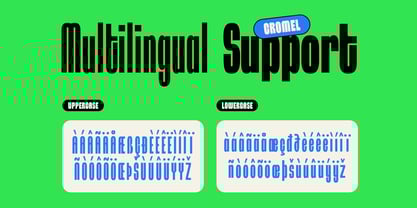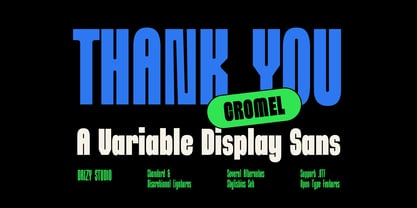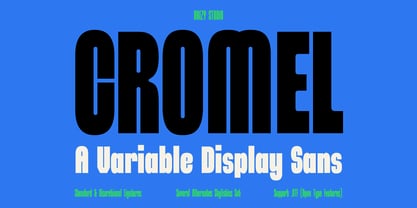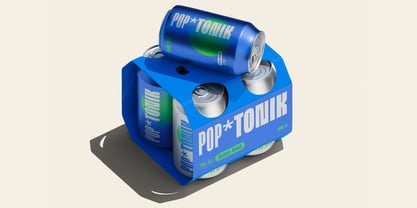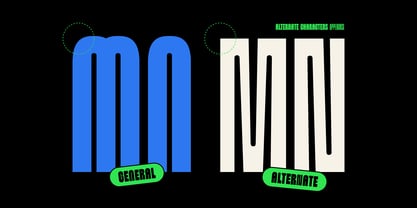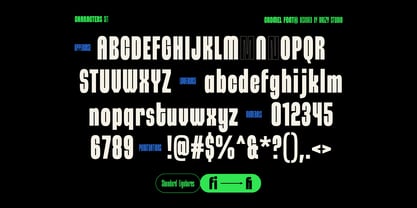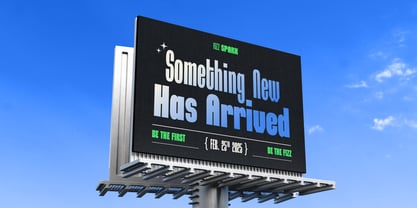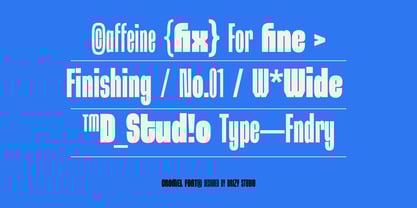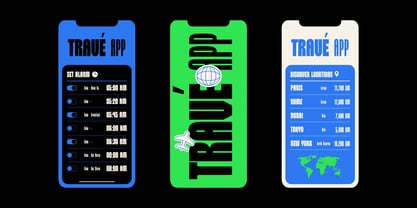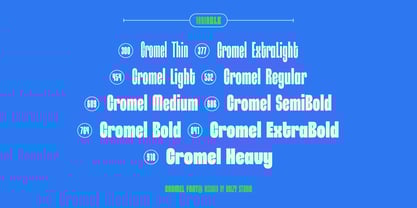
Cromel
by Drizy Font
The Cromel Font Family was designed by Panca Ahmadi Hasan and published by Drizy Font. Cromel contains 9 styles and family package options.
Cromel – Variable Display Sans Font
Cromel – Variable Display Sans Font is a sleek and versatile Modern Clean Sans Serif font designed for contemporary branding and design projects. With its adjustable weight and width, Cromel offers a dynamic range of styles, making it perfect for your project. Its clean lines, balanced proportions, and refined letterforms exude sophistication while maintaining excellent readability. Whether you’re aiming for a bold statement or a subtle touch, Cromel adapts effortlessly to your creative vision. Elevate your designs with Cromel where modern simplicity meets timeless elegance.
Cromel – Variable Display Sans Font features:
• Character Set (Uppercase & Lowercase)
• Punctuation & Numbers
• Multilingual
• Variable: Bold, Extra Light, Heavy, Light, Medium, Regular, Semi Bold, Thin)
• Standard & Discretional Ligatures
• Several Alternates Stylistics Set
Designers: Panca Ahmadi Hasan
Publisher: Drizy Font
Foundry: Drizy Font
Design Owner: Drizy Font